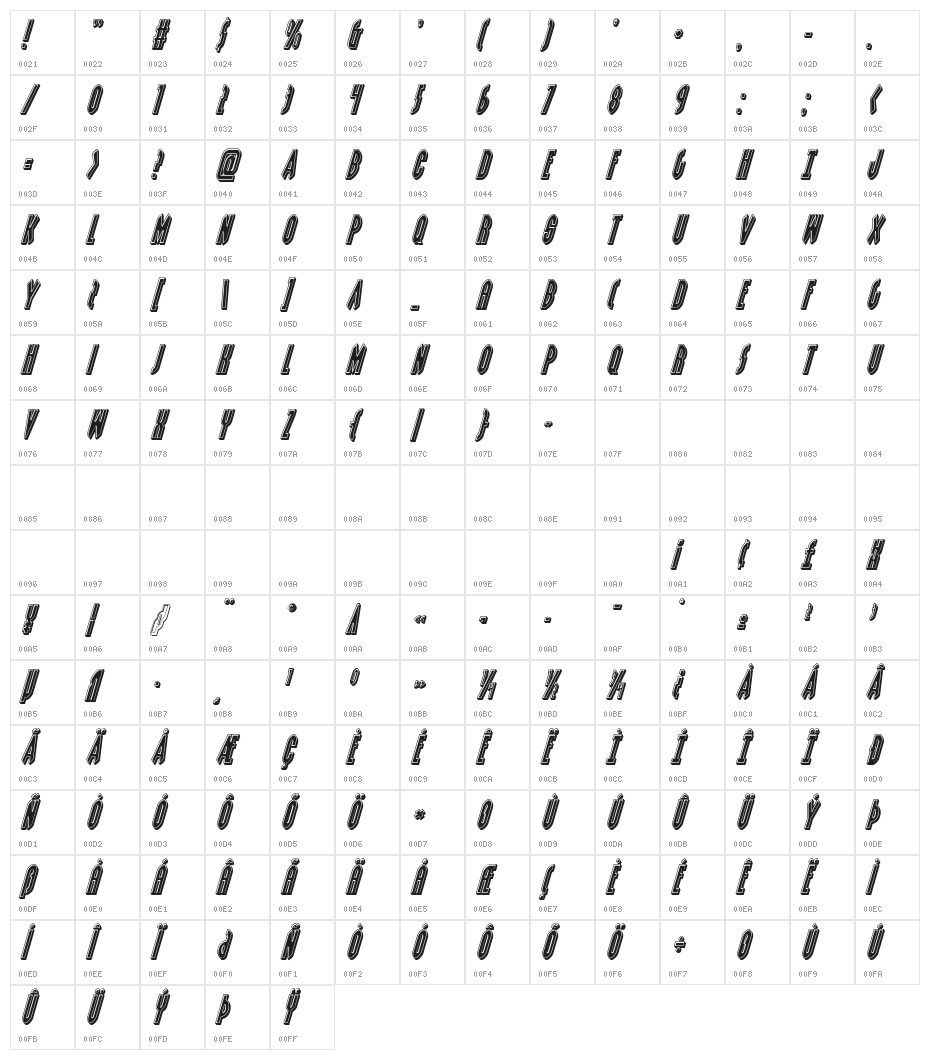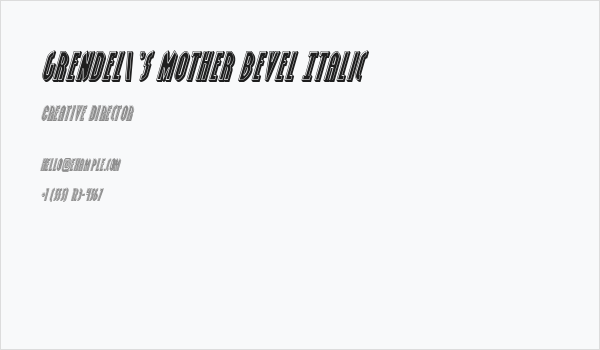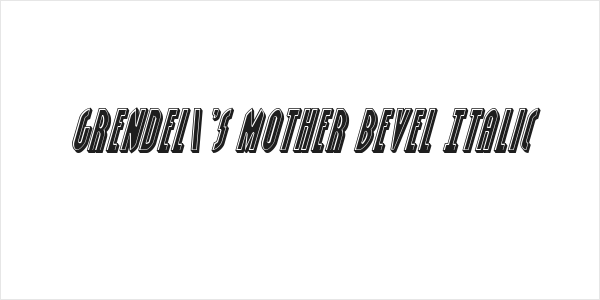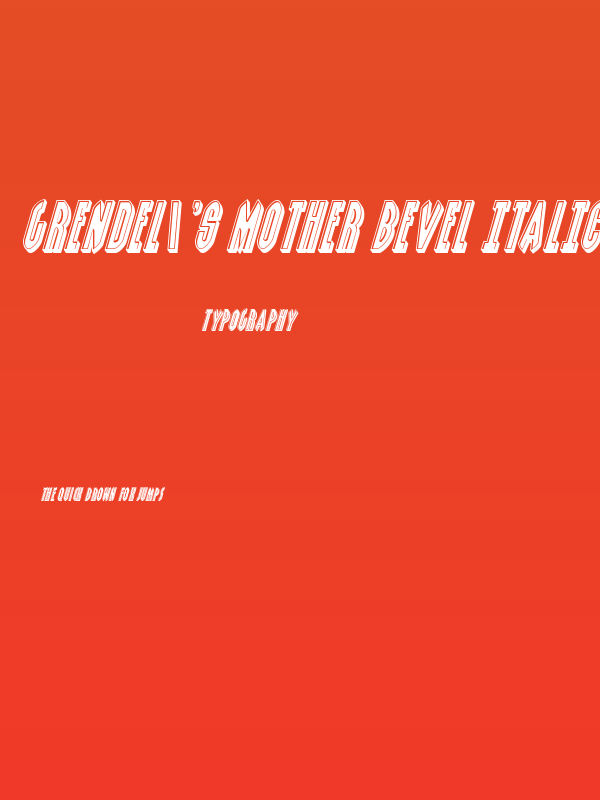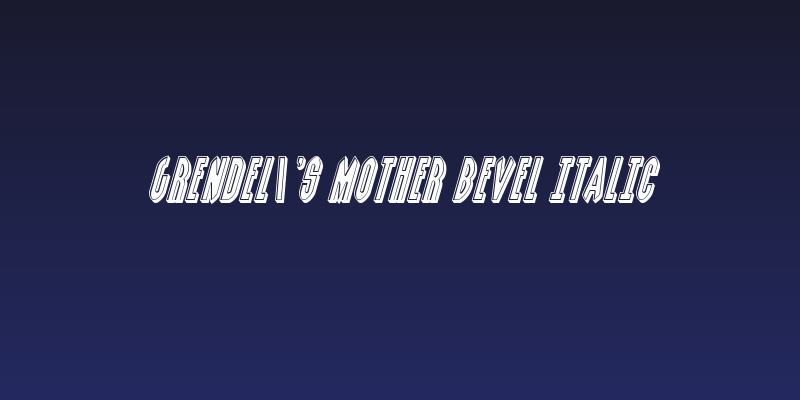
Grendel's Mother Bevel Italic Font
Grendel's Mother Bevel Italic Description
This font features a bold, italicized style with a distinct beveled edge that gives it a three-dimensional appearance. The characters are uppercase and lowercase, with numerals and a variety of special characters. The design is dynamic and eye-catching, making it suitable for attention-grabbing headlines or titles. The italic slant adds a sense of motion and energy, while the bold weight ensures strong visibility. The beveled effect adds depth and a touch of sophistication, making it ideal for modern and creative projects.
| Proposed Projects | Ideal for posters, logos, headlines, and any project requiring a bold, dynamic typeface. |